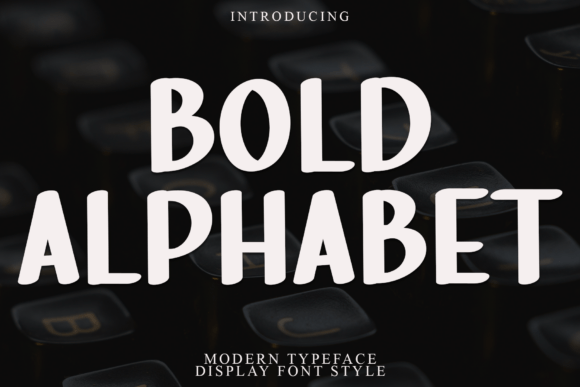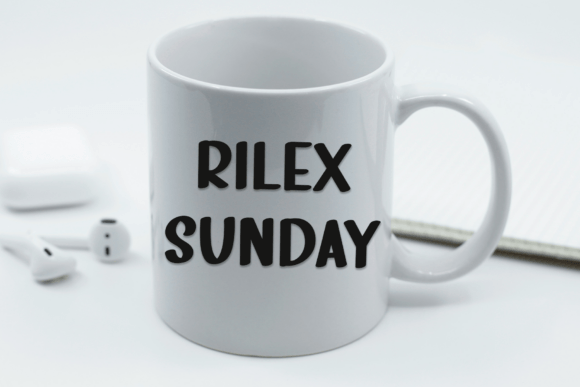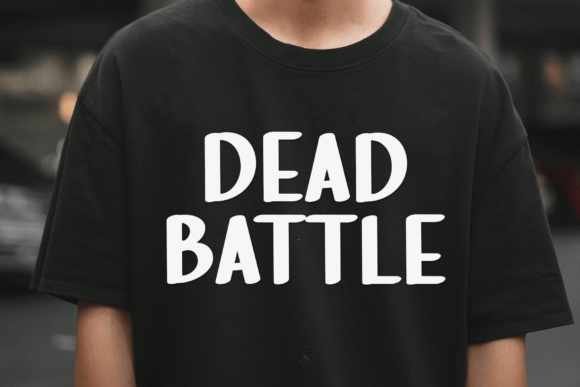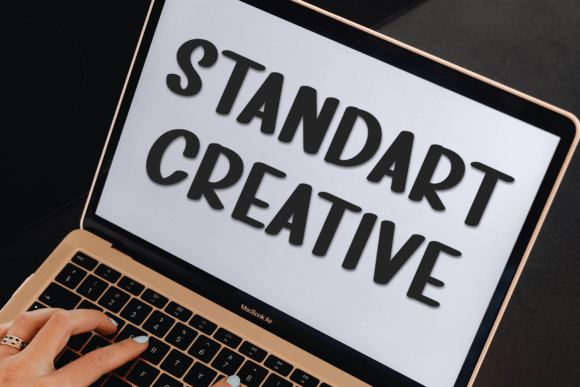
Bold Alphabet Font
About the Bold Alphabet Font
Step up your design game with Bold Alphabet Font, a font that exudes confidence and style. The Bold Alphabet display font is a strong and eye-catching typeface, designed with thick, heavy letters. It’s perfect for making big, bold statements in headlines, posters, or any design that needs attention. The letters are clear and easy to read, giving a strong and modern feel.
Its bold, assertive personality makes it ideal for headlines, posters, and branding projects requiring a strong visual impact. Consider it for logos, short taglines, or packaging where a commanding presence is desired. However, its weight and large x-height make it unsuitable for body text or UI elements where readability over long stretches is crucial.
Pairing it with a clean sans-serif like Open Sans for body copy creates a strong contrast and balanced visual hierarchy. For a more refined look, consider a delicate serif typeface such as Garamond for supporting text, softening the Bold Alphabet’s boldness. Avoid pairing it with other heavy or highly stylized fonts to prevent visual clutter.
The overall impression is one of modern confidence and power, suiting brands projecting strength, innovation, or authority. Think technology, finance, or high-end product lines.
Bold Alphabet Font Example